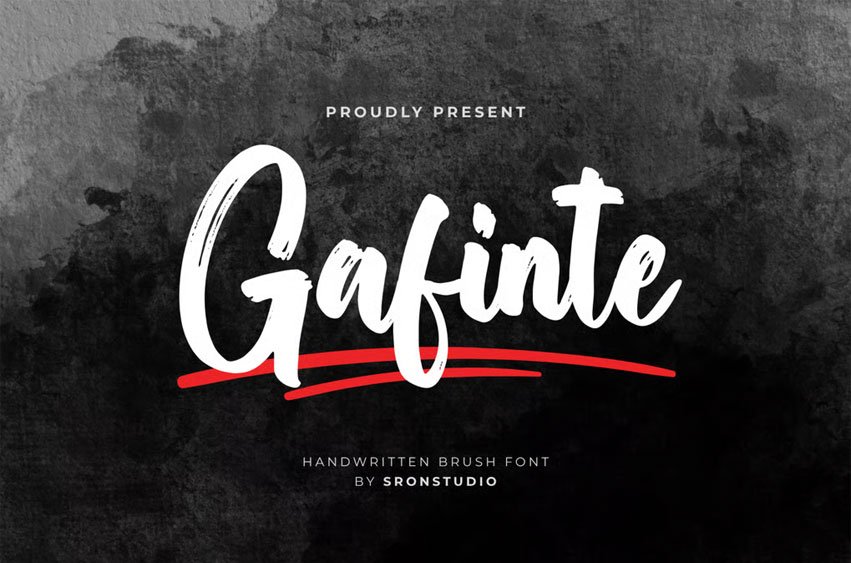
Gafinte Font is a bold script brush font that brings dynamic movement and handcrafted charm to your designs. With its expressive strokes and natural brush textures, this font is perfect for logos, posters, packaging, social media, and any project that needs a confident and artistic touch.
Gafinte captures the raw energy of real brush lettering, making your typography feel alive and full of personality.